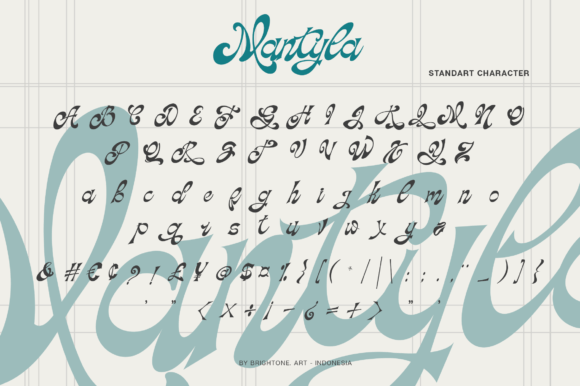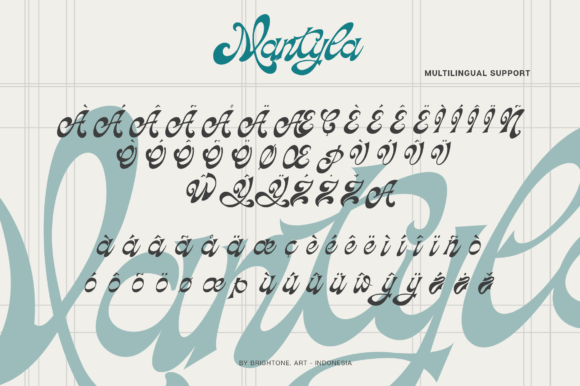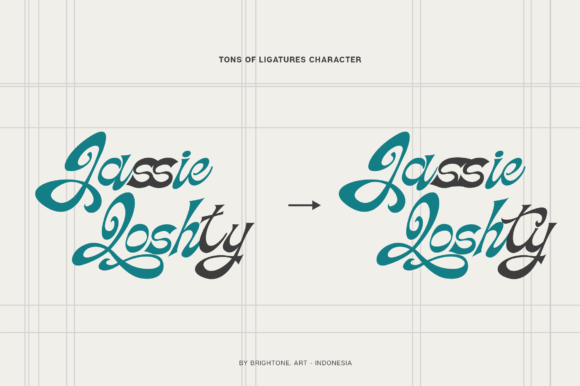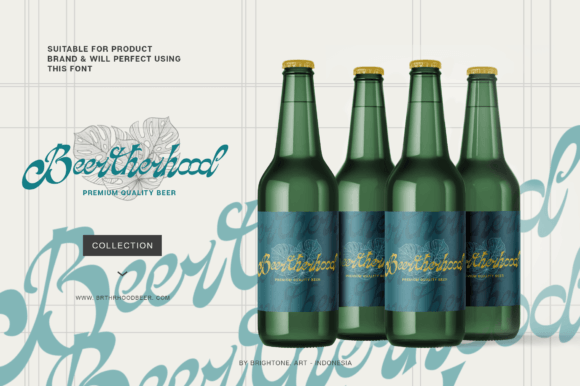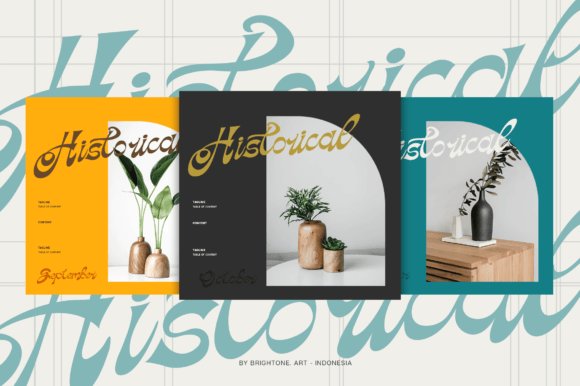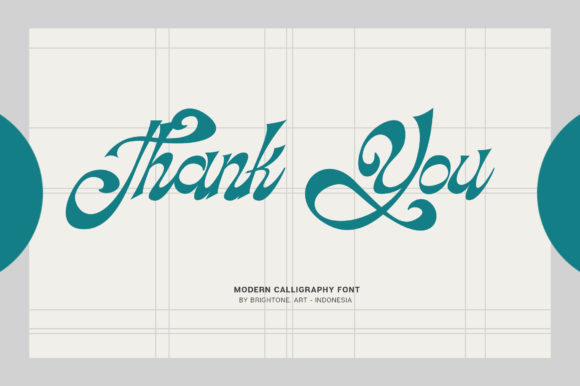
Introduction to Mantyla Font Font
Fonts play a crucial role in design, and the Mantyla Font font is a typeface that brings both character and versatility to any project. Whether you’re working on a branding project, a website, or a print design, the Mantyla Font font offers a unique style that can elevate your work.
Mantyla is a playful handwritten font with a hippie touch.
Add it to your logos, lettering, labels, packaging, stickers, branding, and many more, and notice how it makes them stand out from the competition .
Key Features of Mantyla Font Font
Why Choose Mantyla Font Font?
The Mantyla Font font is more than just a typeface – it’s a design tool that helps you communicate your message with style and clarity. Its unique character set and versatile design make it suitable for a wide range of applications, from elegant invitations to bold headlines.
With its carefully crafted letterforms and balanced proportions, the Mantyla Font font ensures readability and visual appeal across all mediums.
What makes Mantyla Font font special?
The Mantyla Font font stands out with its unique design, exceptional readability, and versatility across various design applications.